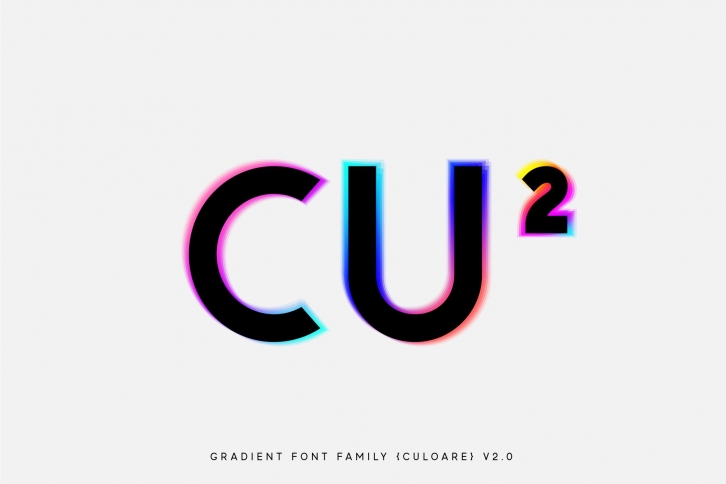
Introducing Culoare V2.0 is the second version of the space bright COLOR gradient font. (The first version is here - creativemarket.com/luxfont/4933846-Cosmo.-OTF-SVG-Hologram-family.) This is a new set with completely new color combinations, bright and saturated like neon. 3 types of stylization in 9 different color gradient combinations with soft transitions. The letters seem to be backlit and it looks very original in addition to stylish minimalist glyphs. Lots of design use cases. Ideal for promotional illustrations, headlines and covers.
This font family is based on the Regular font Boldini - which means that if necessary you can combine these two families and they will be absolutely stylistically identical and complement each other.
• 27 OTF SVG color fonts in family.
• Uppercase and lowercase the same size but different colors.
• Transparency in letters.
• Kerning.
• OTF SVG fonts contain vector letters with gradients and transparency.